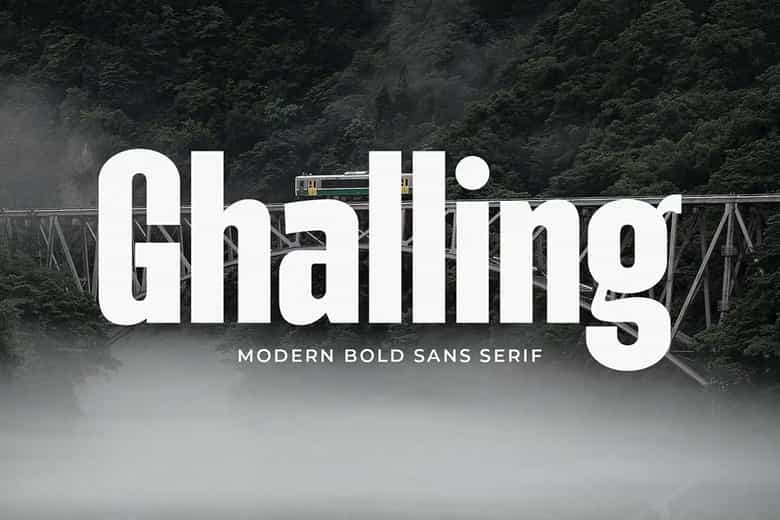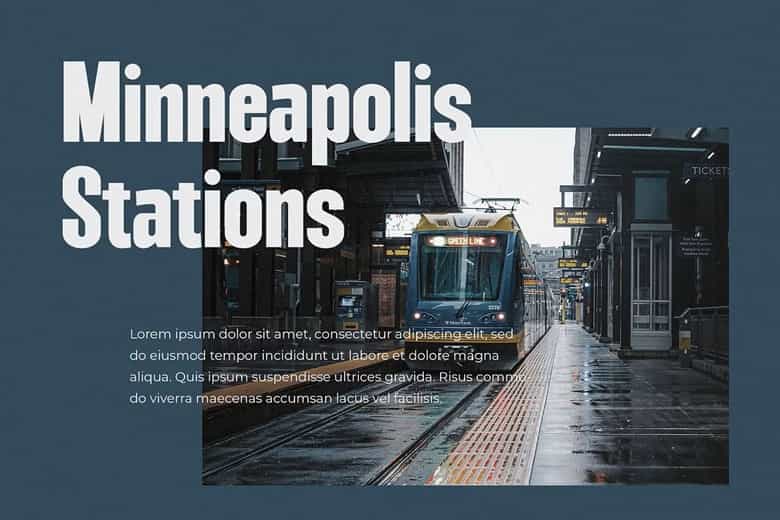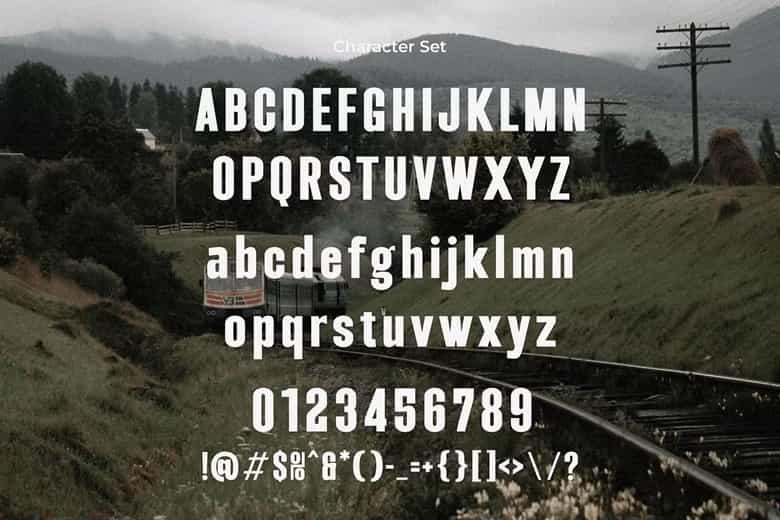
Ghalling is a new modern bold sans serif typeface with elegant style. No matter the topic, this font will be an incredible asset to your fonts library, as it has the potential to elevate any creation. This is perfect for branding, logos, invitation, magazines, product packaging and more.